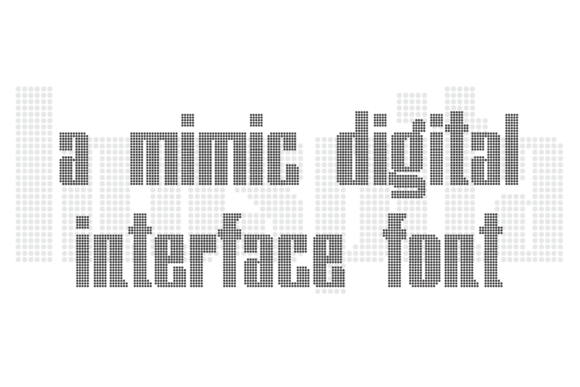
Introduction to Inospita Font
The Inospita is a mimic digital interface font.
It has a great readability and is perfect for all your digital designs .